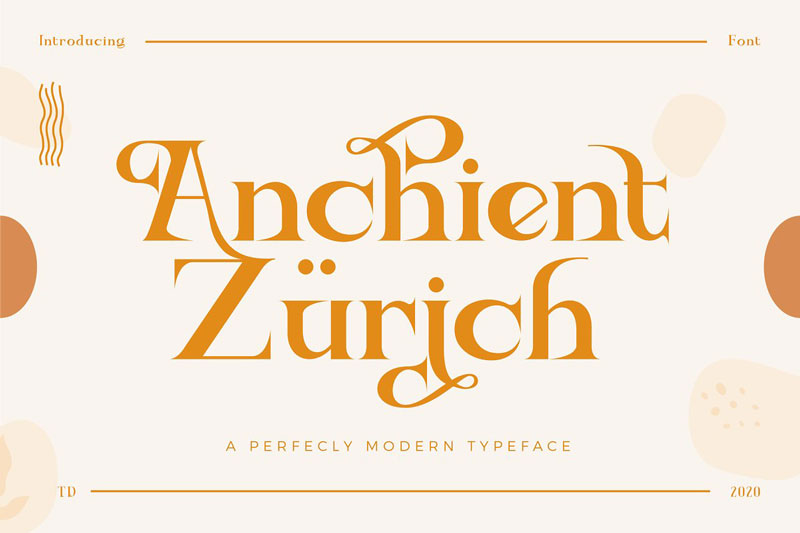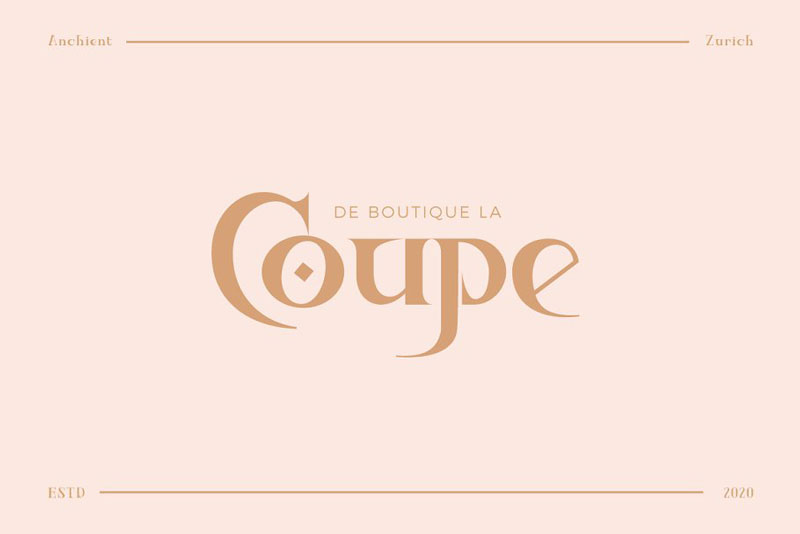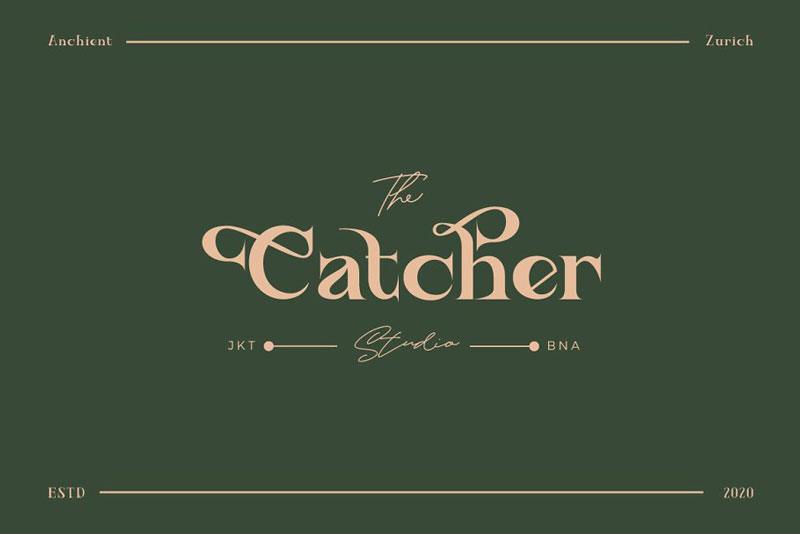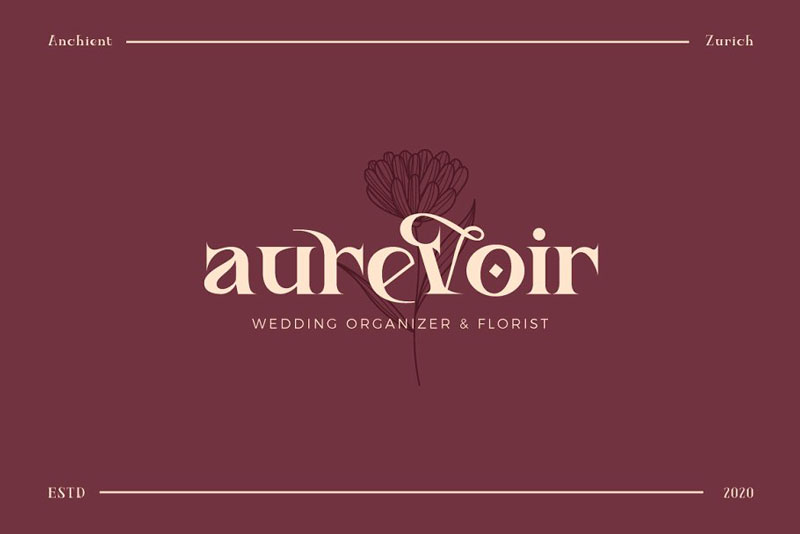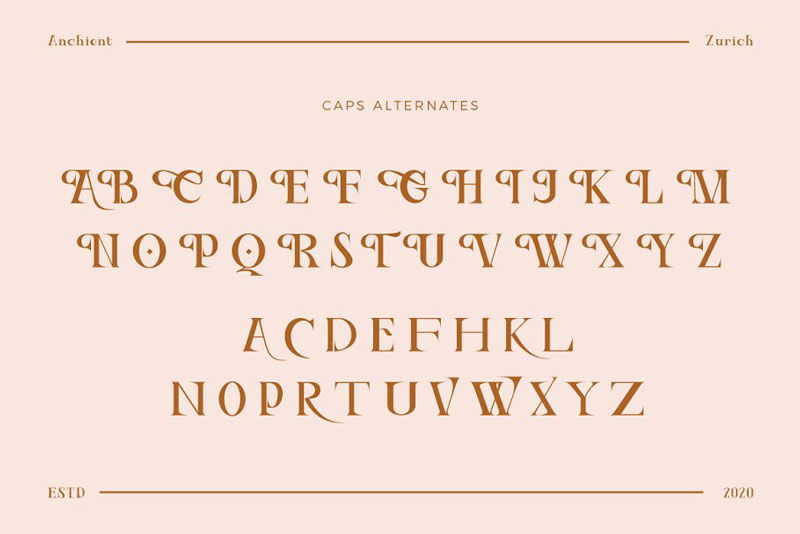
Ancient Zurich – Serif Elegant Font Logotype Brand
Ancient Zurich is Elegant serif style typeface, this font is ideal for those big bold headings or wedding invitations. It’s got hundreds of characters and ligatures plus all those European letters! Ancient Zurich pairs perfectly with a light scripts font or minimal sans serif.
• Alternate Character Capital Character
• Stylistic Set lowercase Character
• Multilingual support
Ancient Zurich – Elegant Serif Logo
Ancient Zurich Serif was inspired by the trend of typography in SWISS. The font looks elegant and classy. and it works so well in modern settings as well as paired with Modern Sans. We love how easy it is to use in designs and know you will too.
• Stylistic Alternative
• Stylistic Set
• Swash